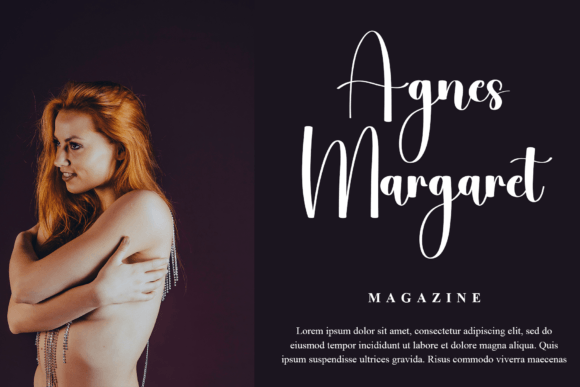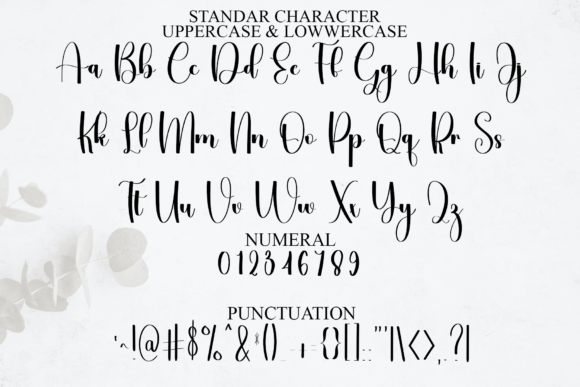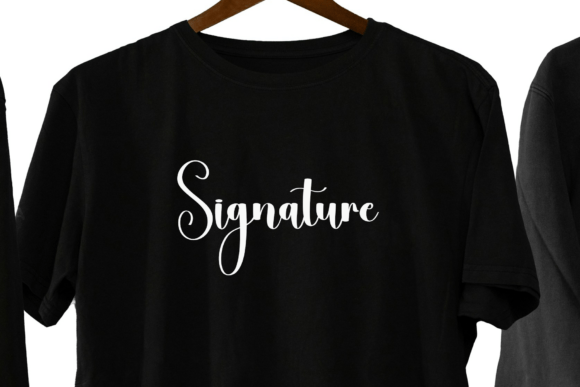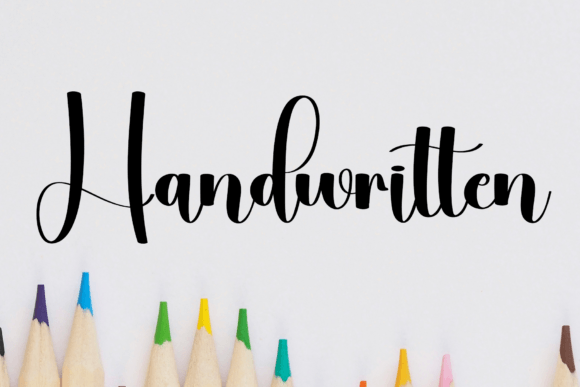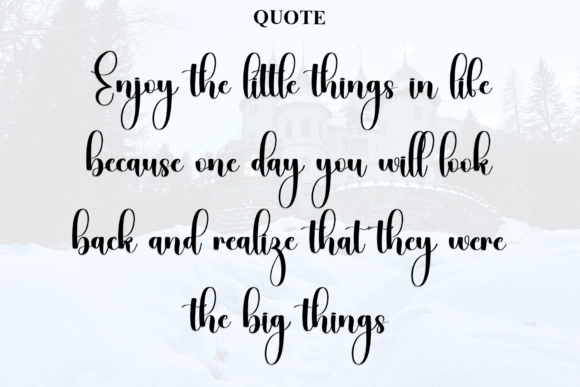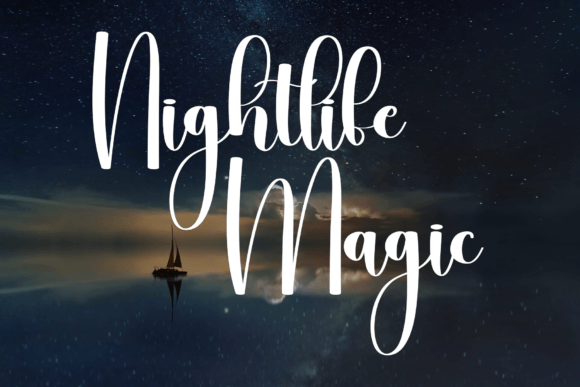
Introduction to Magical Ending Font
Have you ever found yourself stuck on a design project, struggling to find the perfect font to convey the essence of your creative vision? I know I have. It’s like trying to find the missing piece of a puzzle – everything looks great, but something’s just not quite right. But then, it happens – you stumble upon a font that makes your design come alive. For me, that font was the Magical Ending Font.
This stunning handmade script font has been a game-changer for designers looking to add a touch of elegance and sophistication to their projects. With its smooth curves and graceful swashes, it’s perfect for creating high-quality designs that exude charm and timeless beauty. Whether you’re working on a wedding invitation, branding, logo, or upscale project, the Magical Ending Font is an invaluable design resource that’s sure to elevate your creative project.
Key Features of Magical Ending Font
- Unique characteristics: Magical Ending Font features an enchanting, whimsical design, perfect for adding a touch of magic to your creative project
Honest Review: Magical Ending Font
I recently stumbled upon the Magical Ending Font, and I must say it’s been a game-changer for my design projects. As a designer, I’m always on the lookout for unique and high-quality fonts to elevate my creative work.
Here are some things that work well about the Magical Ending Font: ✨
- High quality: The font is incredibly crisp and clear, even when scaled up or down.
However, there are a few limitations to be aware of: ⚠️
- Limited font styles: While the font is available in a range of weights, there are only a few font styles to choose from.
- Not suitable for all designs: Due to its magical and whimsical nature, the font may not be the best choice for more formal or corporate designs.
Overall, I’m thoroughly impressed with the Magical Ending Font. It’s a fantastic addition to any designer’s toolkit, and I’ve already used it in several of my recent projects. If you’re looking for a unique and high-quality font for your creative project, I highly recommend giving the Magical Ending Font a try.
Getting the Most Out of Magical Ending Font
For the best results, use the Magical Ending Font in combination with other high-quality design resources. Experiment with different font sizes, colors, and styles to achieve a unique look.
The Magical Ending Font is ideal for:
- Party and event designs
- Personalized gift tags and cards